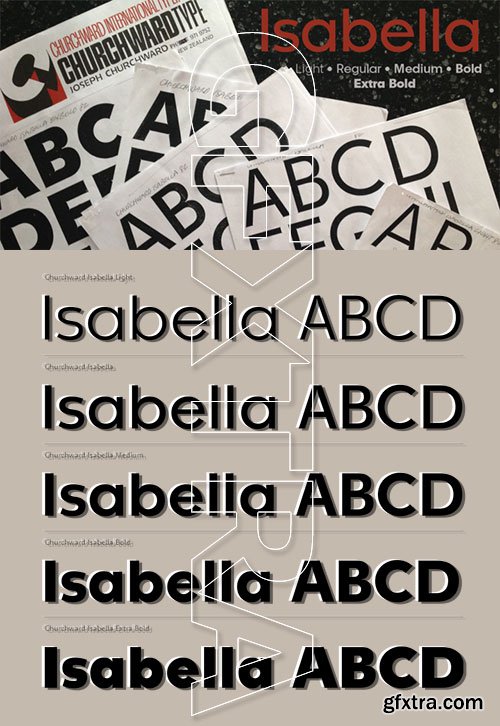
Churchward Isabella - A Straightforward,
- Churchward Isabella is a five weight typeface family originally designed during the 1980’s by the late type designer Joseph Churchward, from New Zealand. A straightforward, geometric sans serif, it is a no-nonsense, highly legible workhorse design, readable on screen as well as in print, for text, headline and display. The family includes Light, Regular, Medium, Bold and Extra Bold.